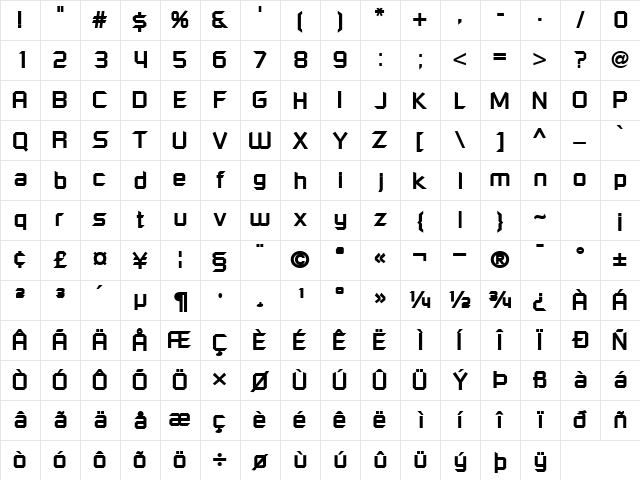
Complete ShoestringSSK Bold glyph index. Displaying only characters natively supported by ShoestringSSK Bold font.
ShoestringSSK is a composed and adaptable typeface that performs quietly and consistently across a wide range of design contexts. Its bold stroke weight gives it real presence on the page.